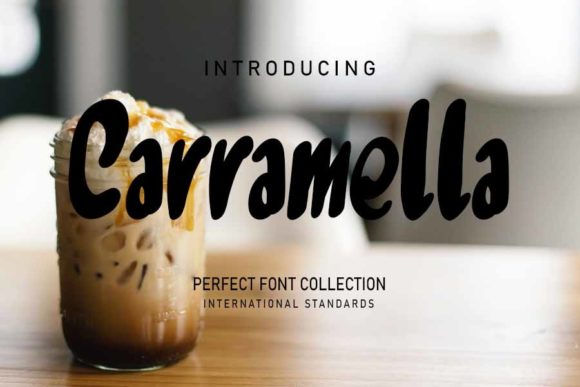
The Carramella Font: A Cool and Trendy Display Font for Your Design Projects
I’ll never forget the time I was working on a branding project for a trendy coffee shop. I had spent hours perfecting the logo, but something was off. The font I had chosen just didn’t seem to fit the vibe I was going for. I scrolled through font after font, but nothing seemed quite right. That’s when I stumbled upon the Carramella font. It was love at first sight! 😍
Carramella is a cool and trendy display font that can be used on a variety of projects, both formal and casual. Its unique blend of modern and elegant features makes it perfect for designers, crafters, and creative hobbyists looking to add a touch of sophistication to their work.
An Honest Review of Carramella
- ✨ Unique and modern design that stands out from the crowd
- 🎉 Wide range of OpenType features, including stylistic alternates and glyphs
- 👍 Great for both digital and print projects
While Carramella is an amazing font, there are a few things to keep in mind:
- ⚠️ May not be the best choice for body text, as it’s a display font and can be a bit too bold for long blocks of text
- 🤔 Some users may find the font a bit too condensed for their taste
The Story Behind Carramella
Carramella was designed by a team of typographers who wanted to create a font that was both modern and elegant. Inspired by the Italian city of Carramella, the font combines traditional Italian typography with modern design elements. The result is a font that’s both stylish and highly legible.
Q: What is Carramella font?
A: Carramella is a cool and trendy display font that’s perfect for a variety of design projects.
Q: What are some common uses for Carramella?
A: Carramella is great for branding, advertising, packaging, and any other project that needs a modern and stylish touch.